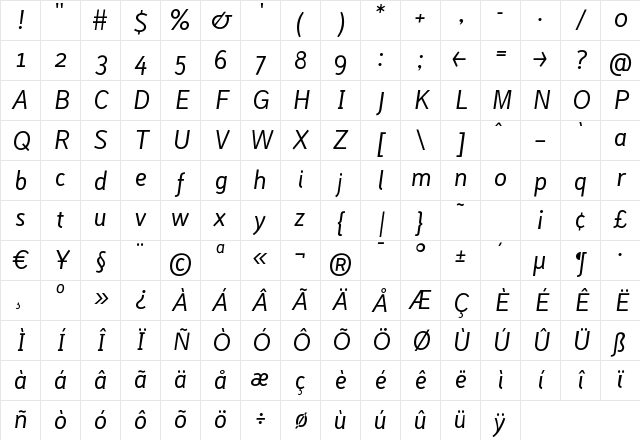
Lacuna Italic Regular
Design Context for Lacuna Italic
Lacuna Italic is a composed and adaptable typeface that performs quietly and consistently across a wide range of design contexts. The slanted form adds forward momentum and visual energy.
Pro Tip: Use Lacuna Italic for emphasis, pull quotes, and subheadings where its slanted energy can add rhythm to the layout.